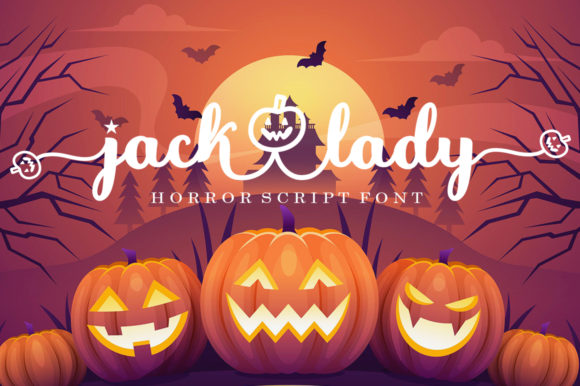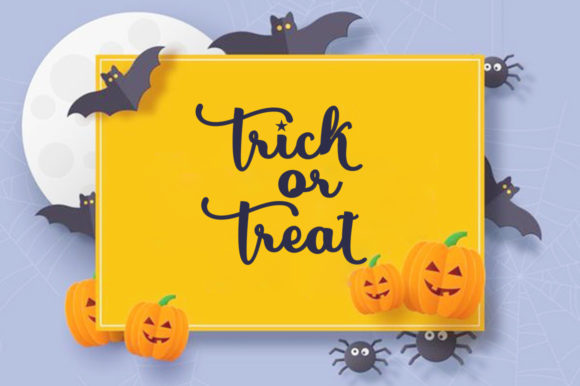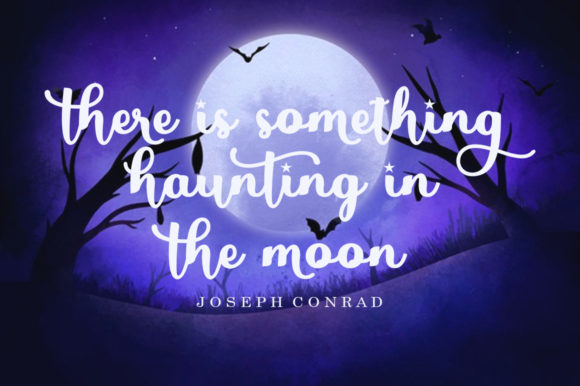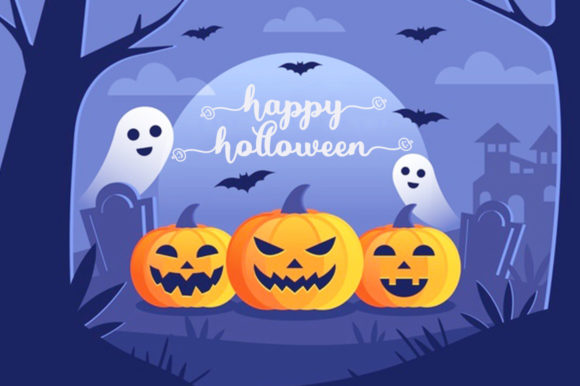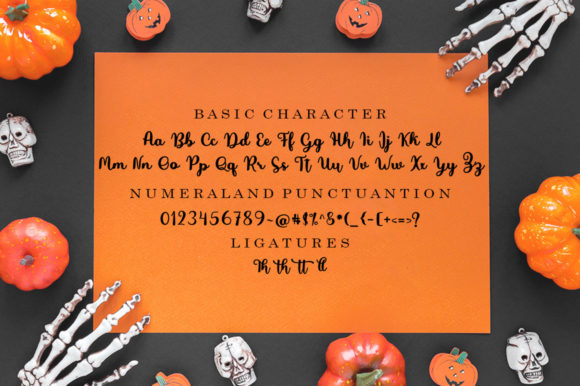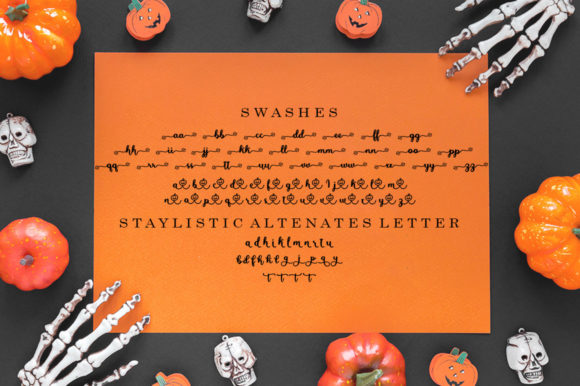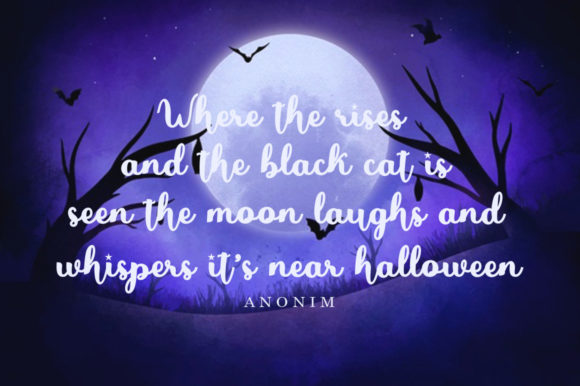
About Jack Lady Font
Jack Lady is a chic, spooky and cursive script font. It is PUA encoded which means you can access all of the glyphs and swashes with ease!
It is perfectly suitable for any Halloween-related project or crafty idea.